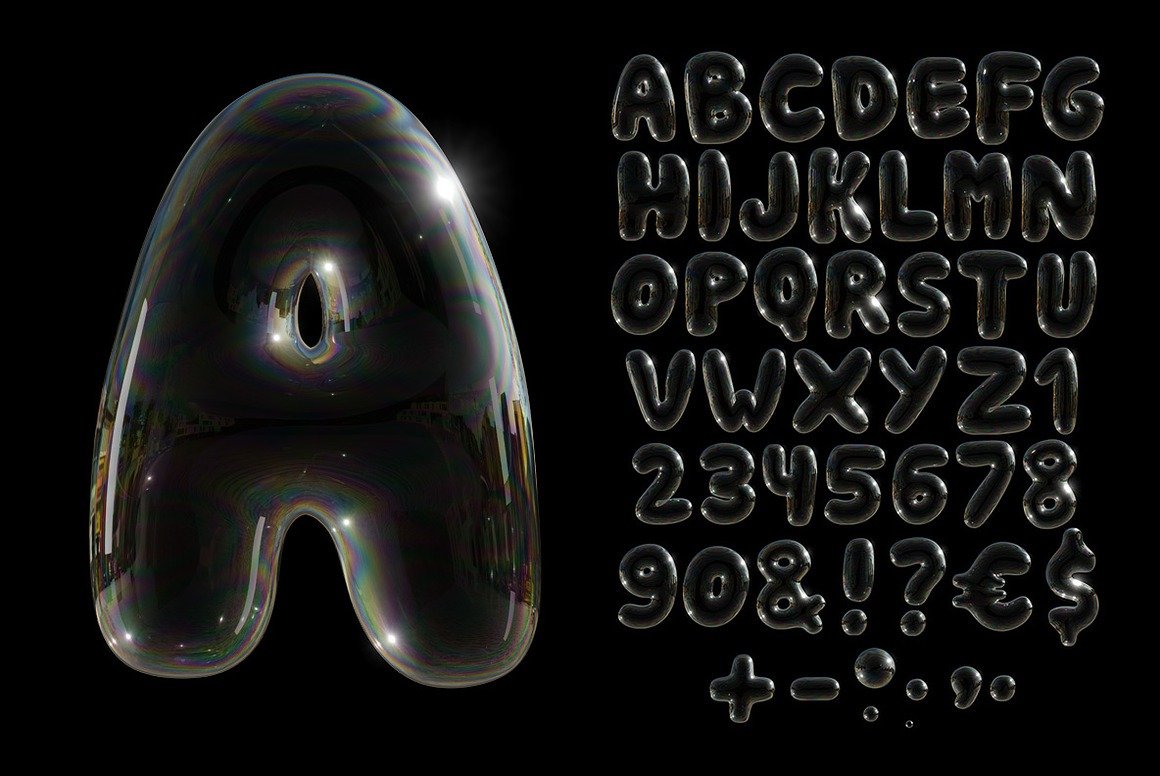
Soap Bubbles SVG Font. A high definition OpenType-SVG font built-in 3D. Contains uppercase characters, numerals and basic punctuation. (Draw height roughly 800 pixels). All letters and glyphs that comprises this font you can see on the preview.
Popular Styles of Soap Bubbles Fonts
Classic Bubble Fonts – Puffy, cartoon-like letters that feel soft and playful.
Glossy 3D Bubble Fonts – Letters that shine as if made of real soap bubbles.
Outline Bubble Fonts – Hollow bubble shapes for coloring books, posters, or doodle designs.
Graffiti-Inspired Bubble Fonts – Street-style bubble letters popular in urban art.
Handwritten Bubble Fonts – Quirky, rounded lettering with a casual, bubbly twist
Benefits of Using Soap Bubble Fonts
Attention-Grabbing – Their unusual, rounded forms stand out immediately.
Versatile for Fun Projects – Works across both print and digital media.
Memorable Branding – Creates lasting impressions with playful aesthetics.
Emotionally Engaging – Evokes joy, fun, and creativity.
Customizable – Designers can apply textures, gradients, or pastel colors for unique effects.
Soap Bubbles Fonts bring joy, nostalgia, and fun into the design world. Their soft, rounded shapes remind us of play, childhood, and creativity. Whether you’re designing a party invitation, packaging for kids’ products, or a bubbly café logo, these fonts can instantly set the right tone.